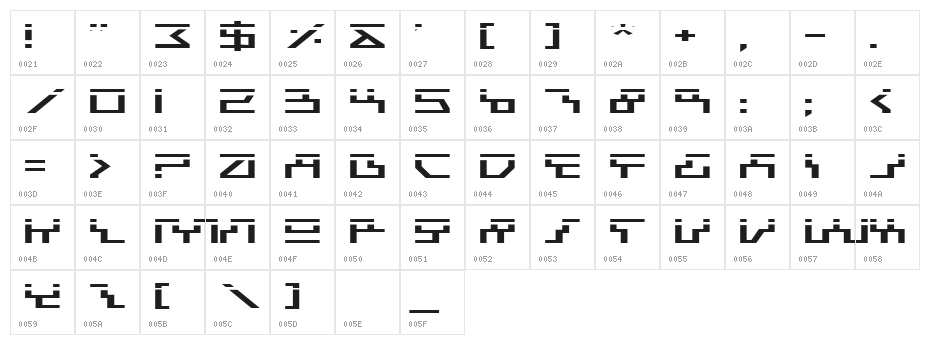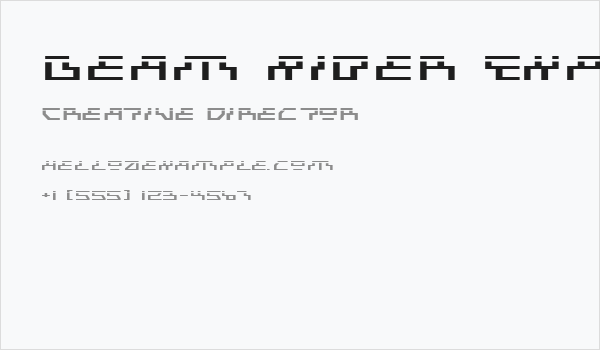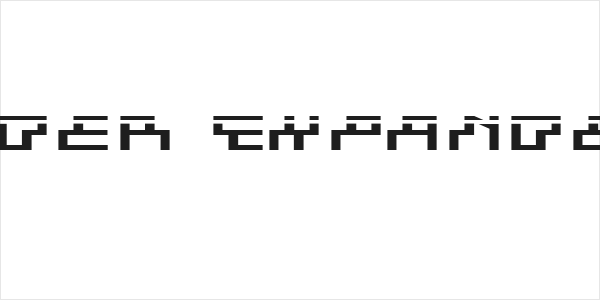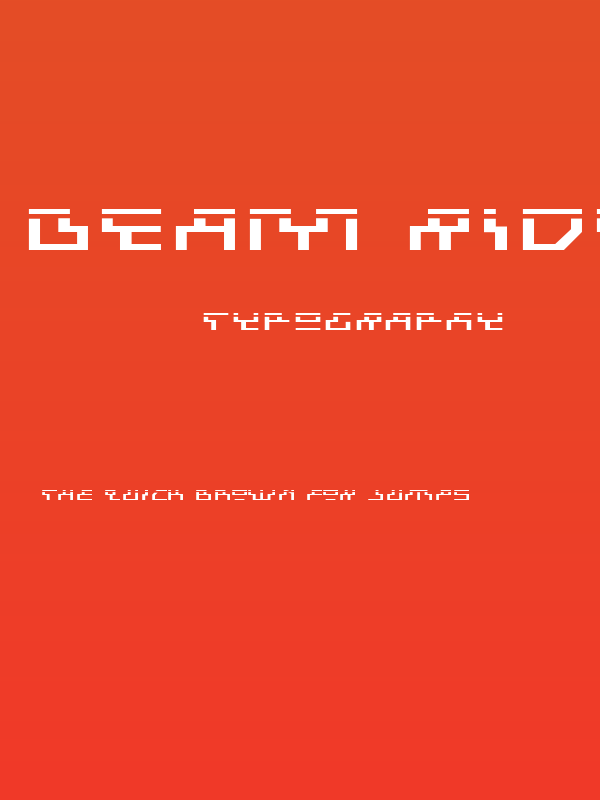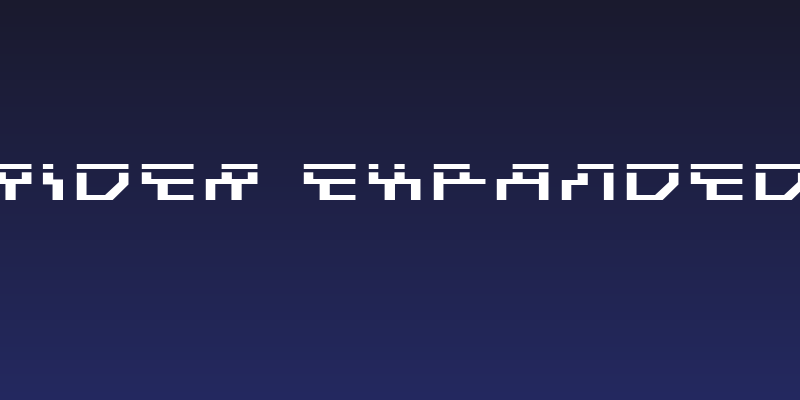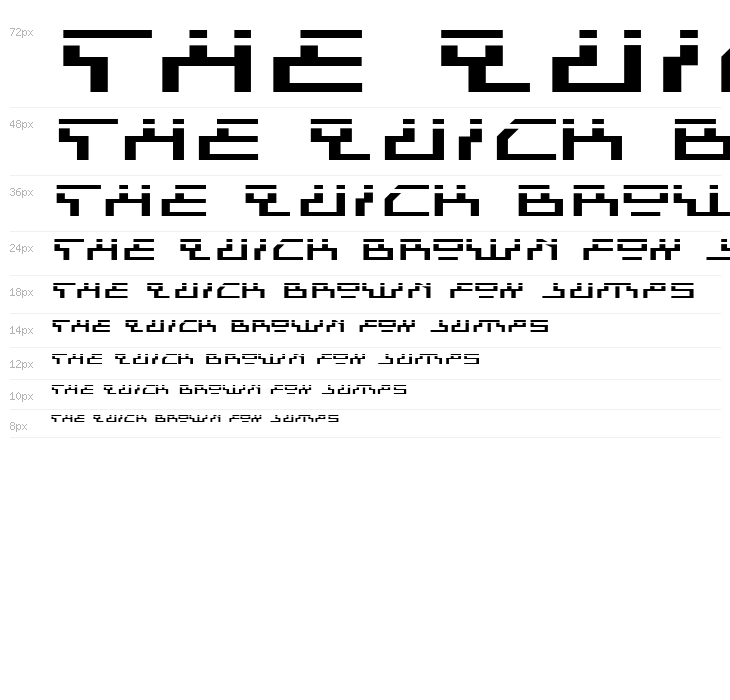
Beam Rider Expanded Laser Font
Beam Rider Expanded Laser Description
This font features a futuristic and digital aesthetic, characterized by its sharp, angular lines and geometric shapes. The design is reminiscent of classic arcade games and science fiction interfaces, offering a bold and striking appearance. The uppercase and lowercase letters maintain a consistent style, with a focus on symmetry and uniformity. The numerals and special characters are crafted to match the overall theme, ensuring a cohesive look across all elements. This font's expanded width and blocky structure make it ideal for creating impactful visual statements.
| Overall Style | Futuristic |
| Proposed Projects | Ideal for video game graphics, sci-fi themed posters, tech branding, and digital interfaces. |